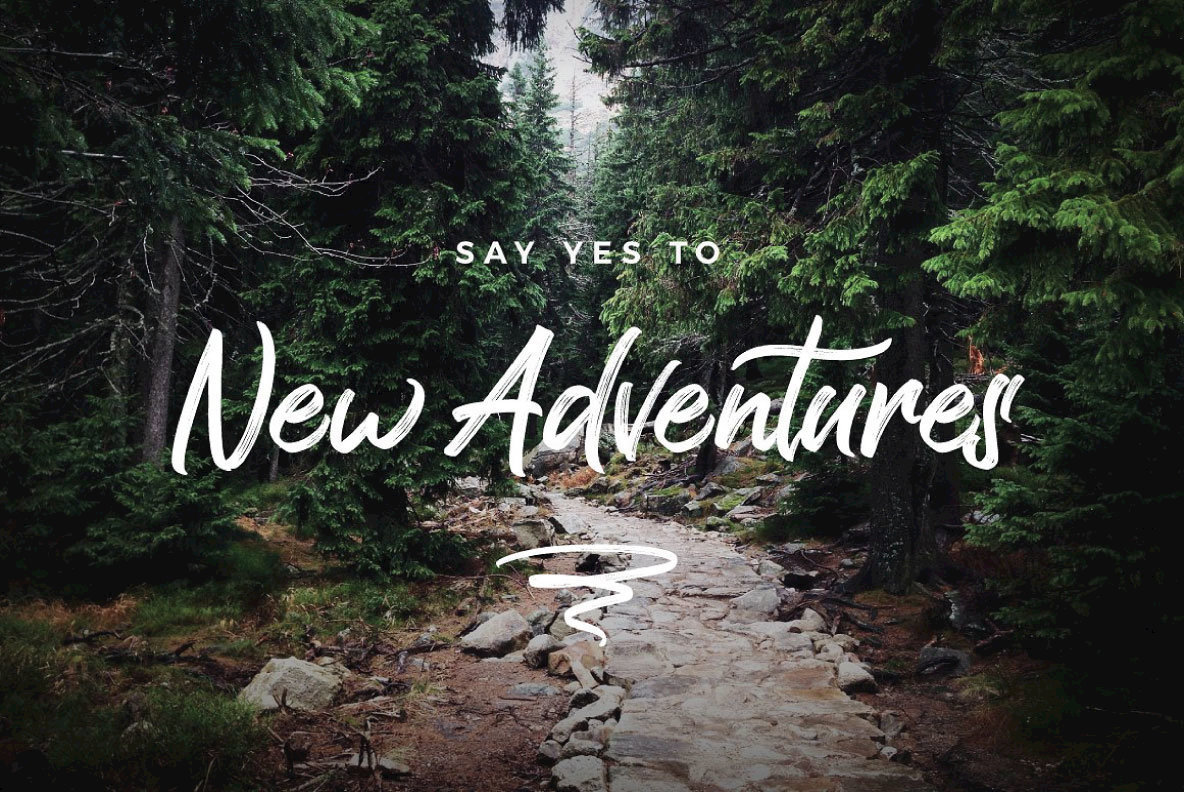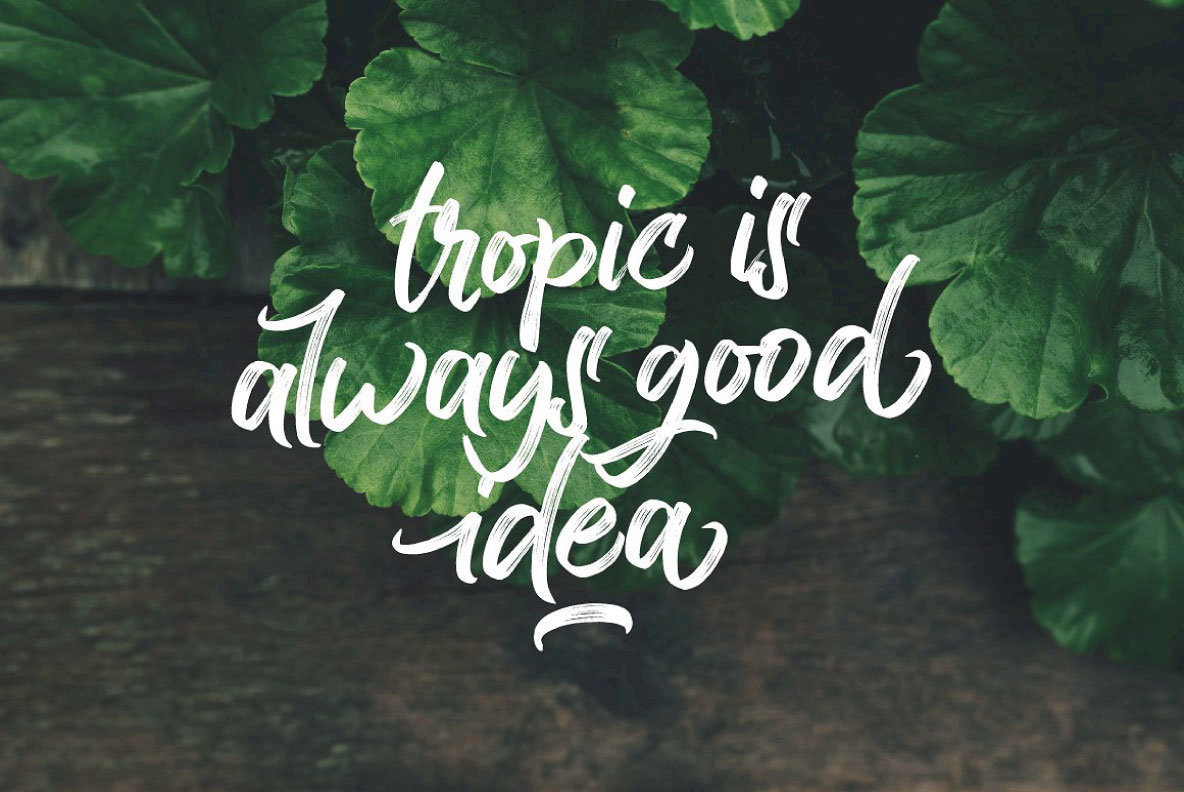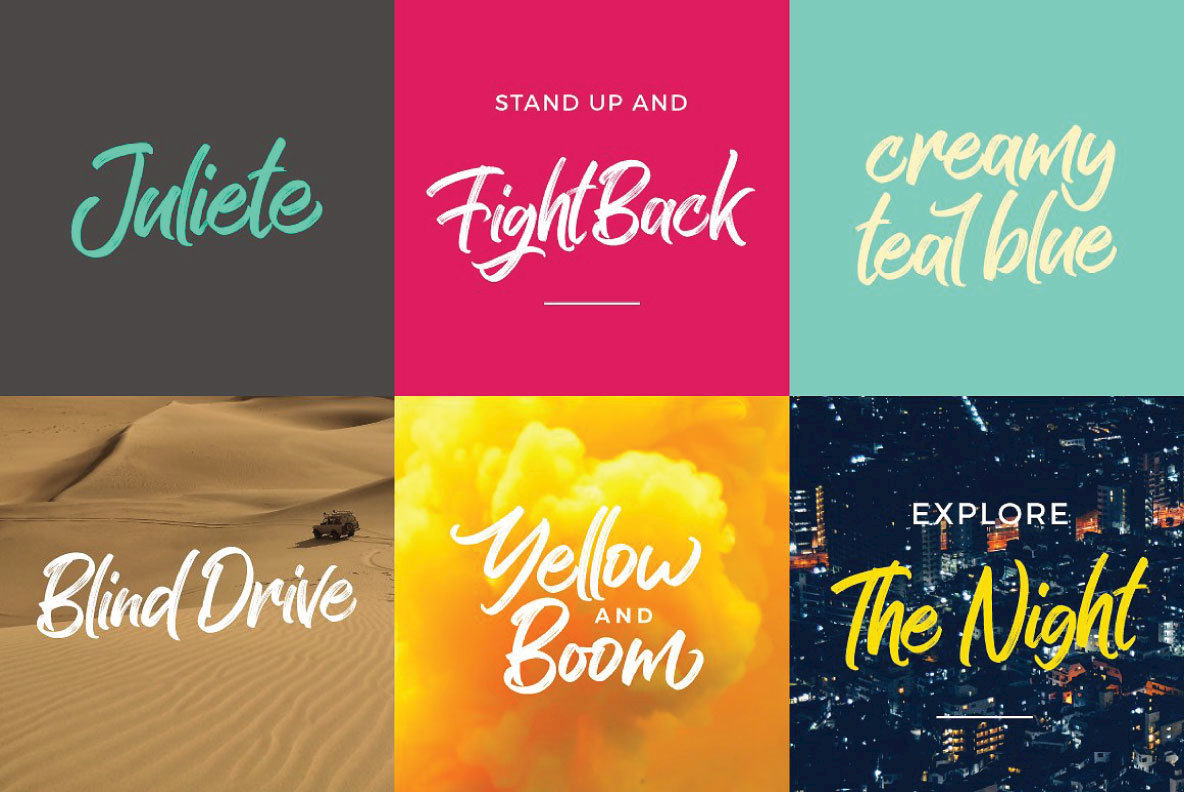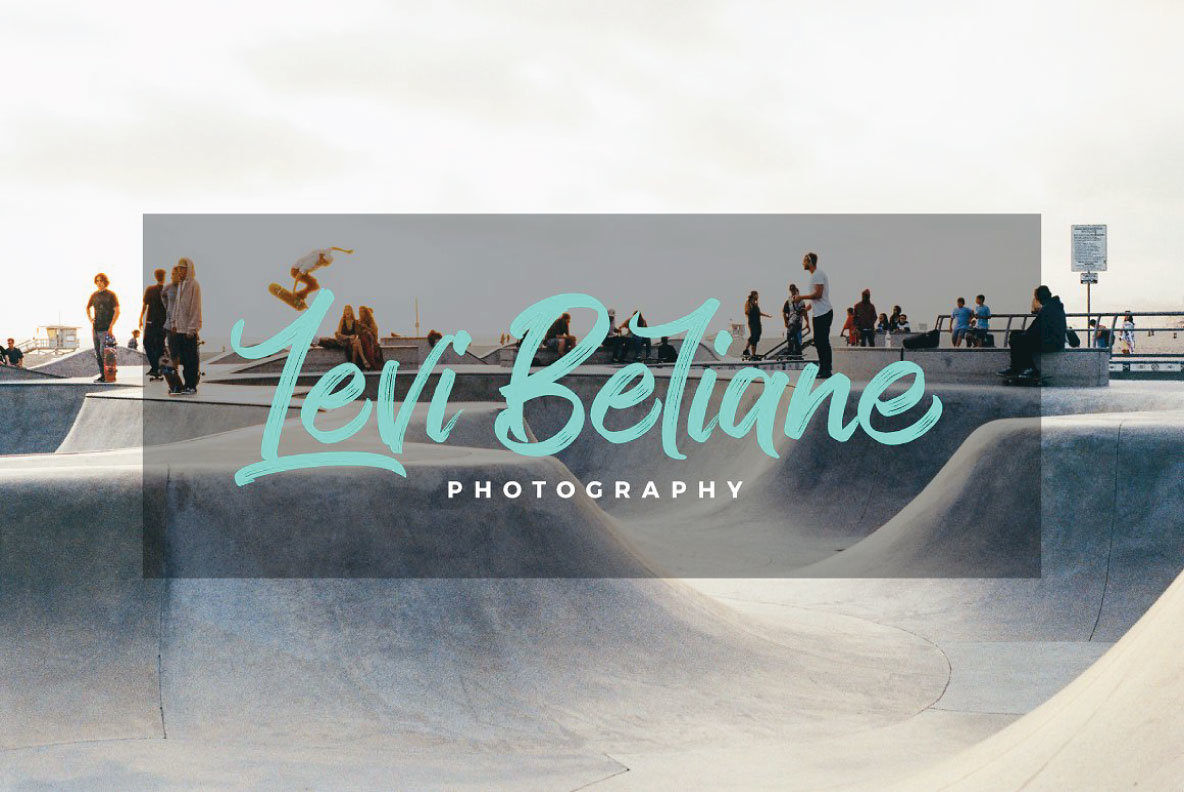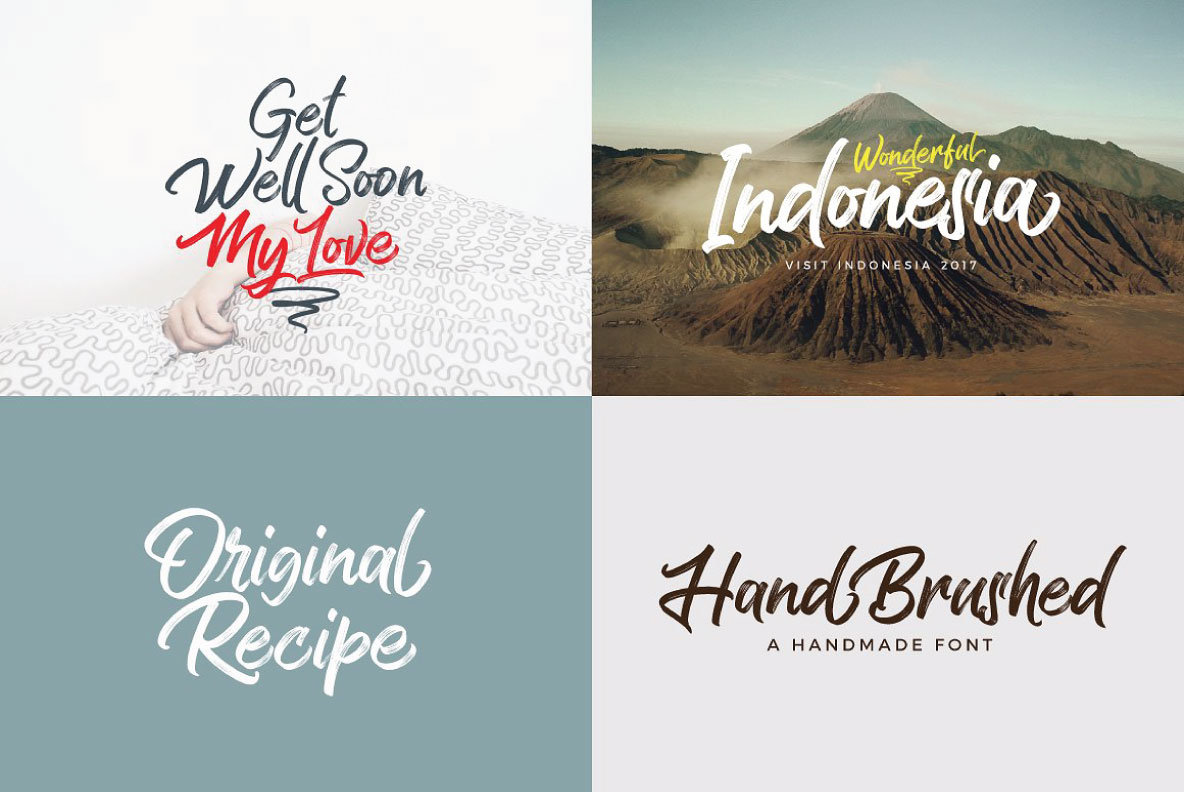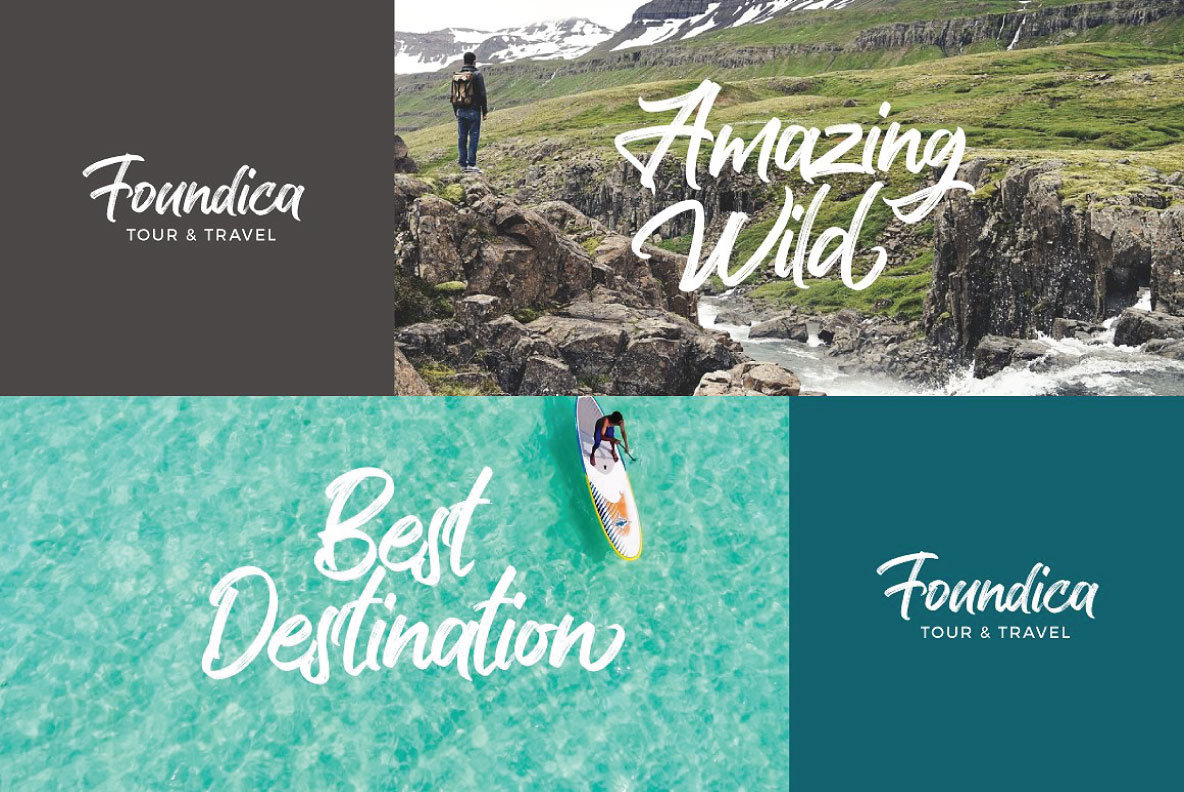
Kaiya Land Font
Kaiya Land
Kaiya Land is a dry brushed font with the edgy characters and the rustic brush effect. It suitable for logo, branding, t-shirt, poster, packaging, book cover, hipster design, cards, and any brush lettering needs and more.